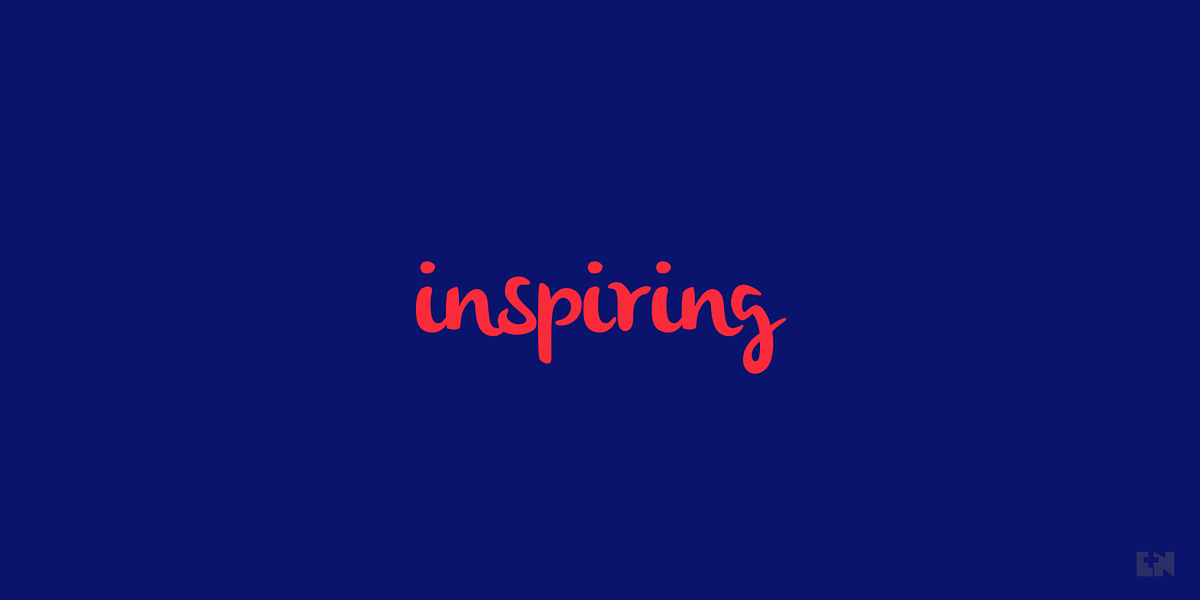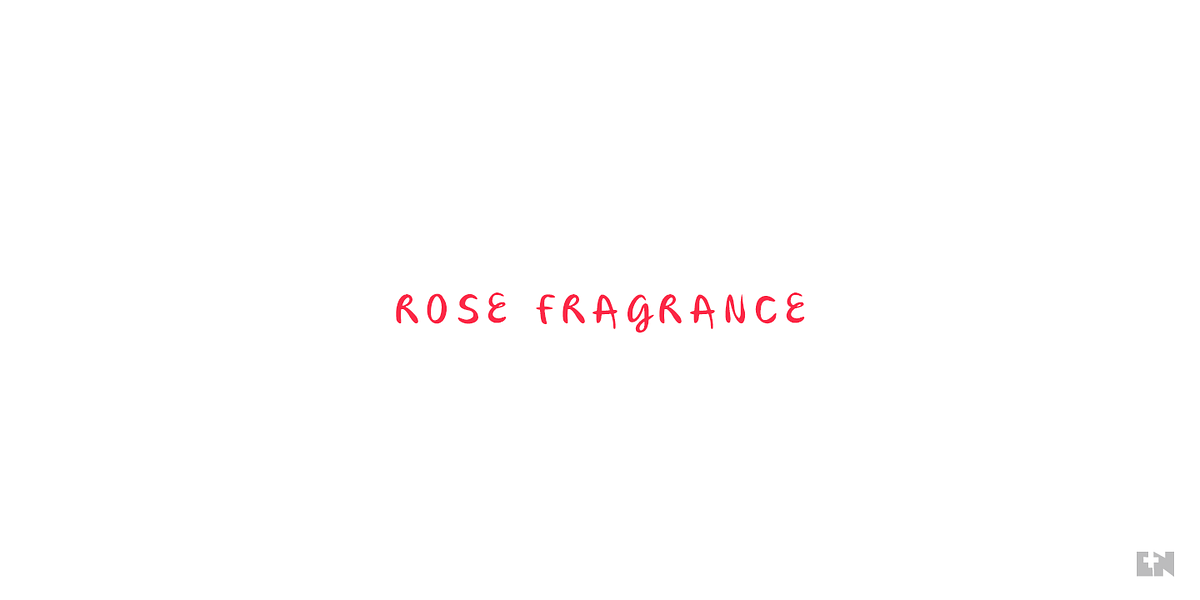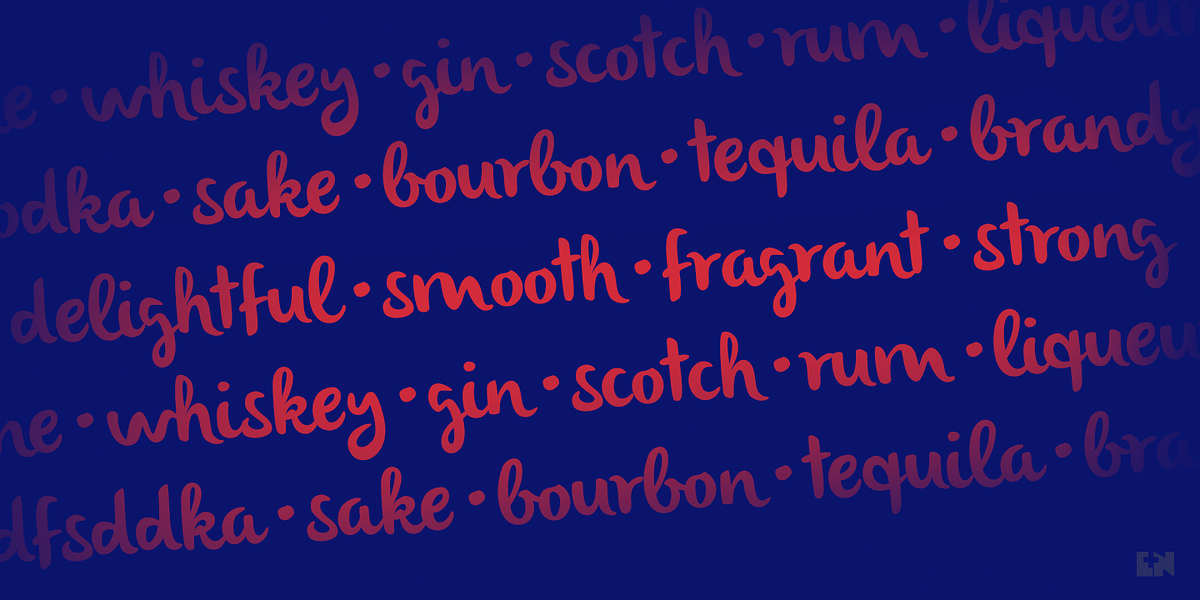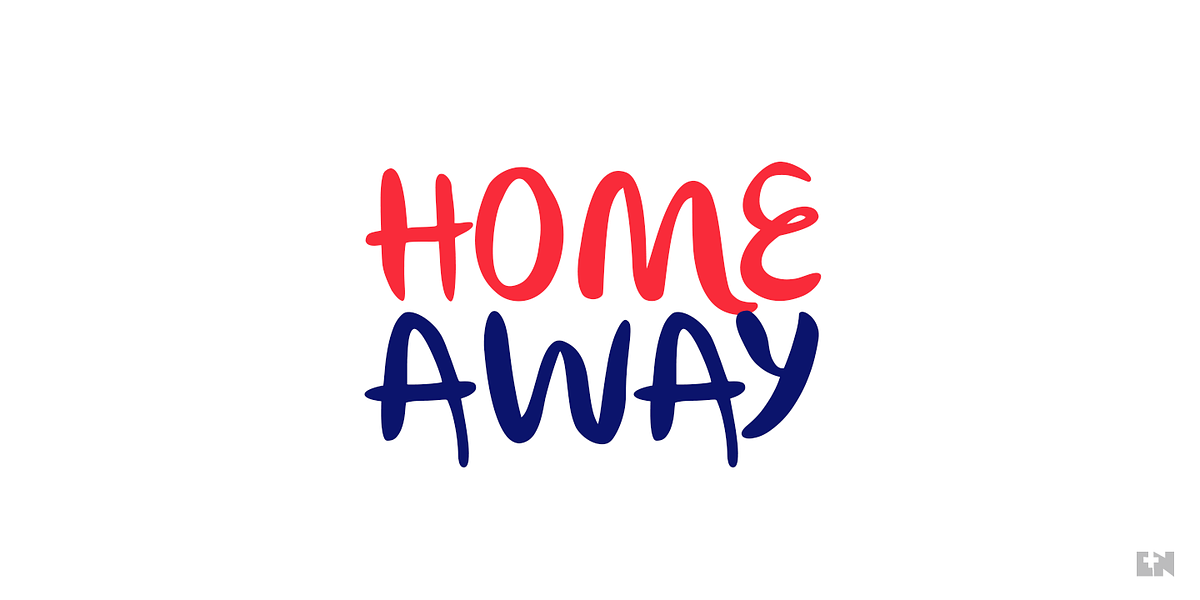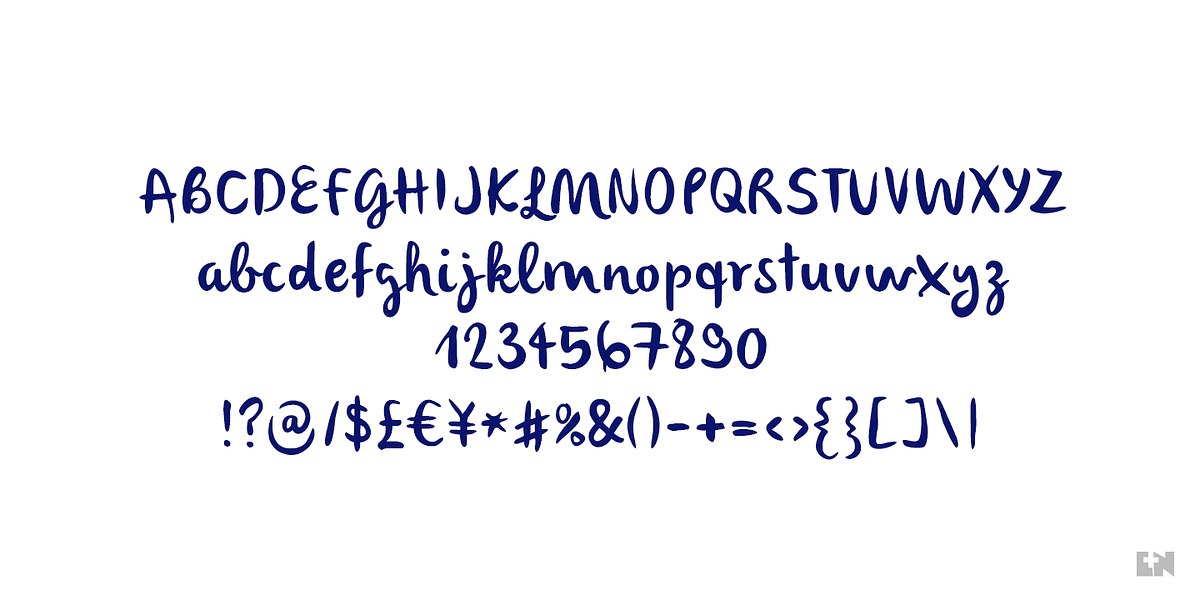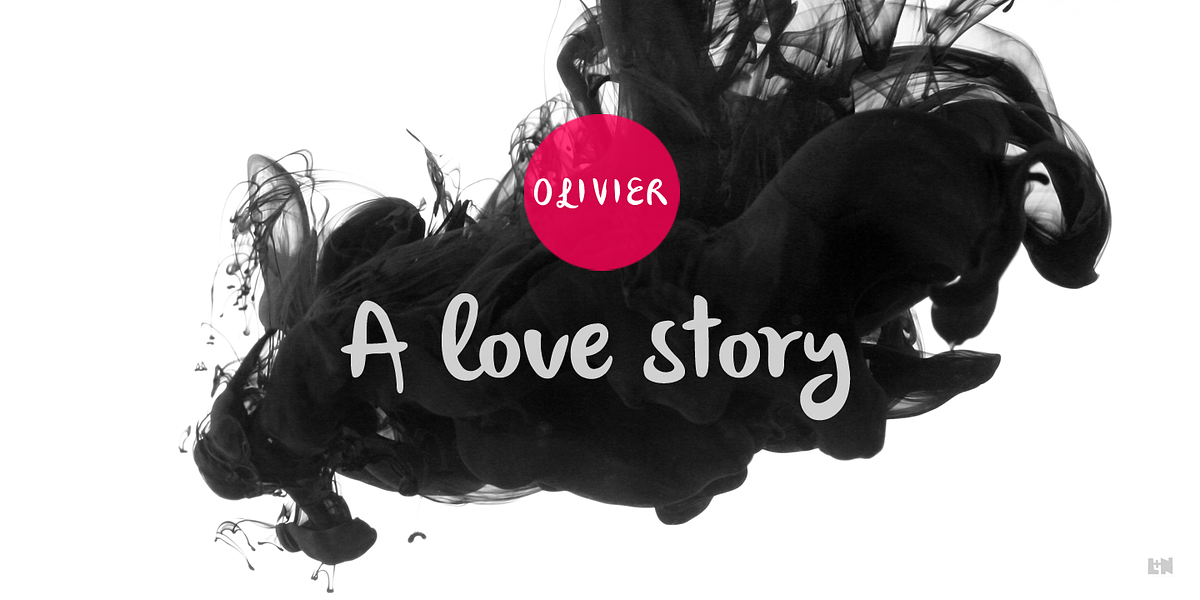
Olivier
Olivier is a casual brush script font inspired by the fluidity of wine. Its design features shifting baselines, mean lines, and cap lines, along with varying tails and ascenders, giving it an organic and playful feel. This font is well-suited for logo types, short paragraphs, and headings.